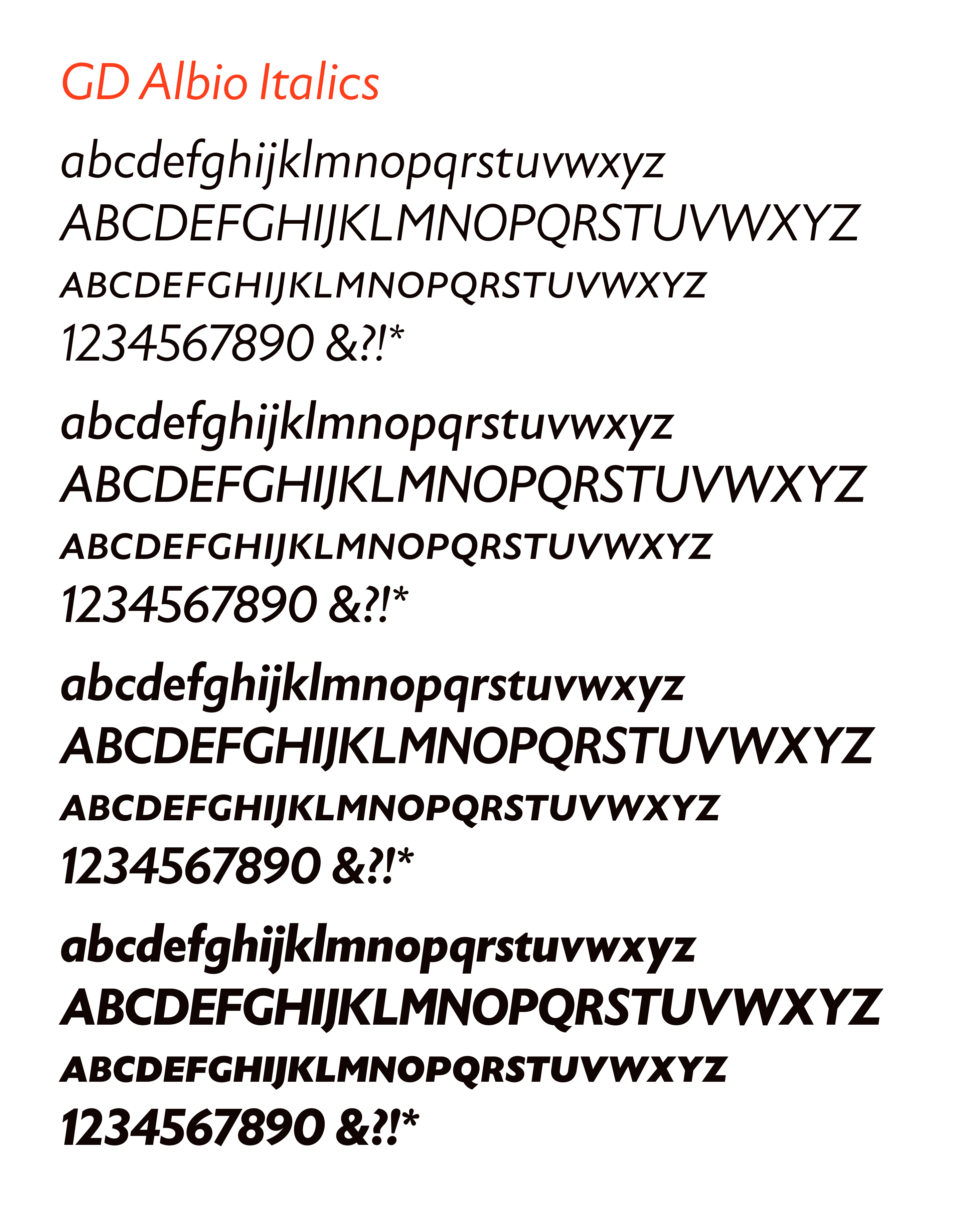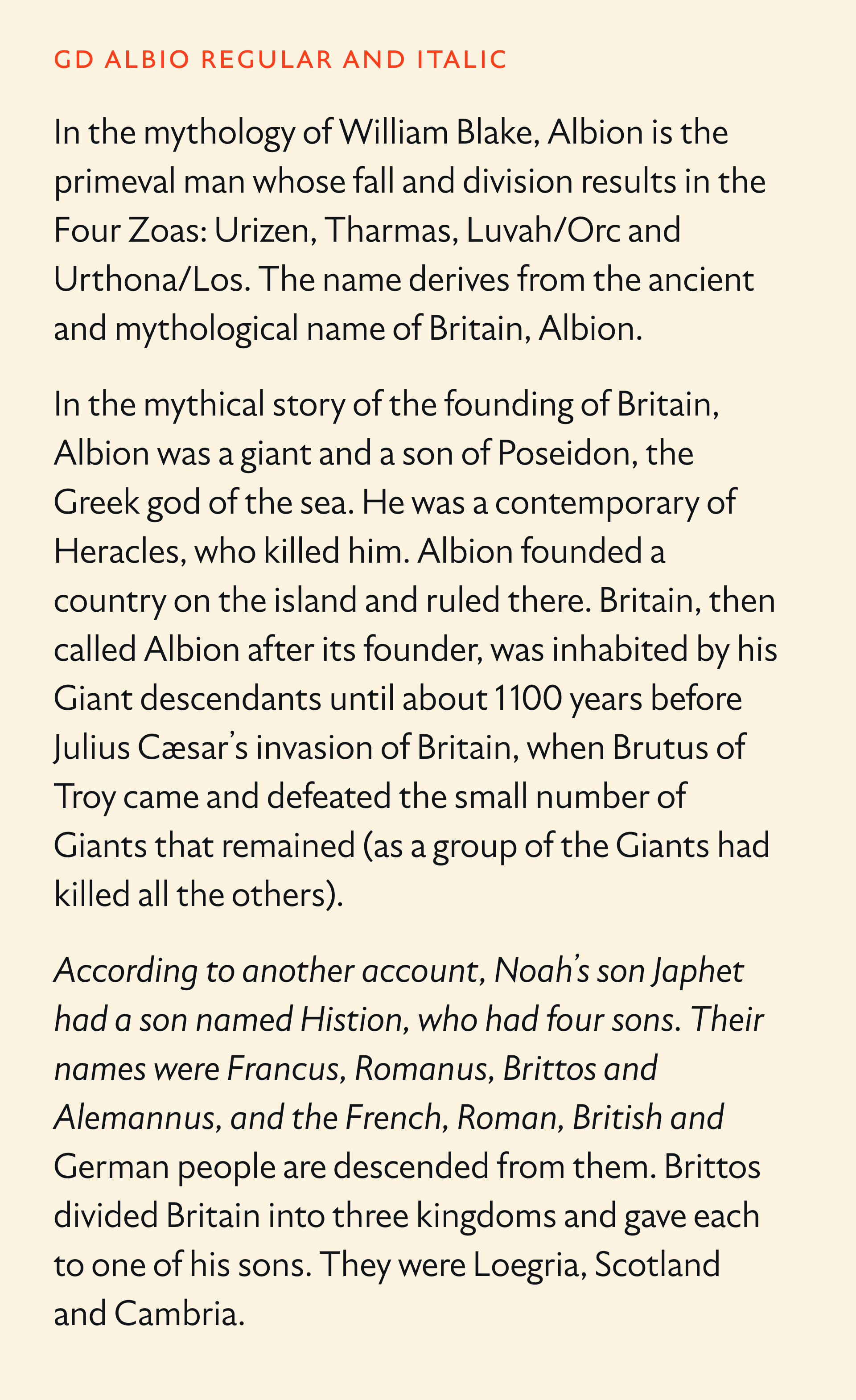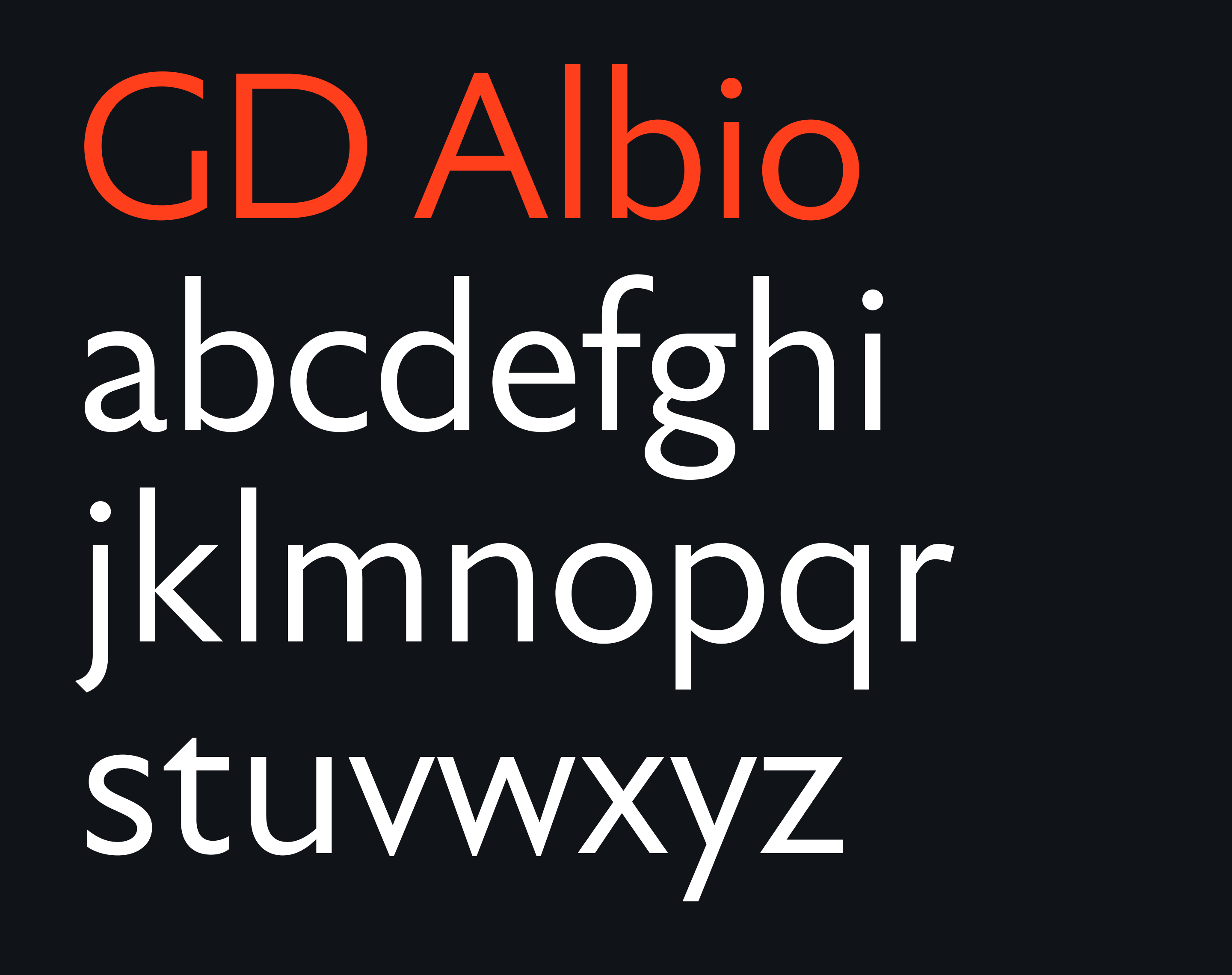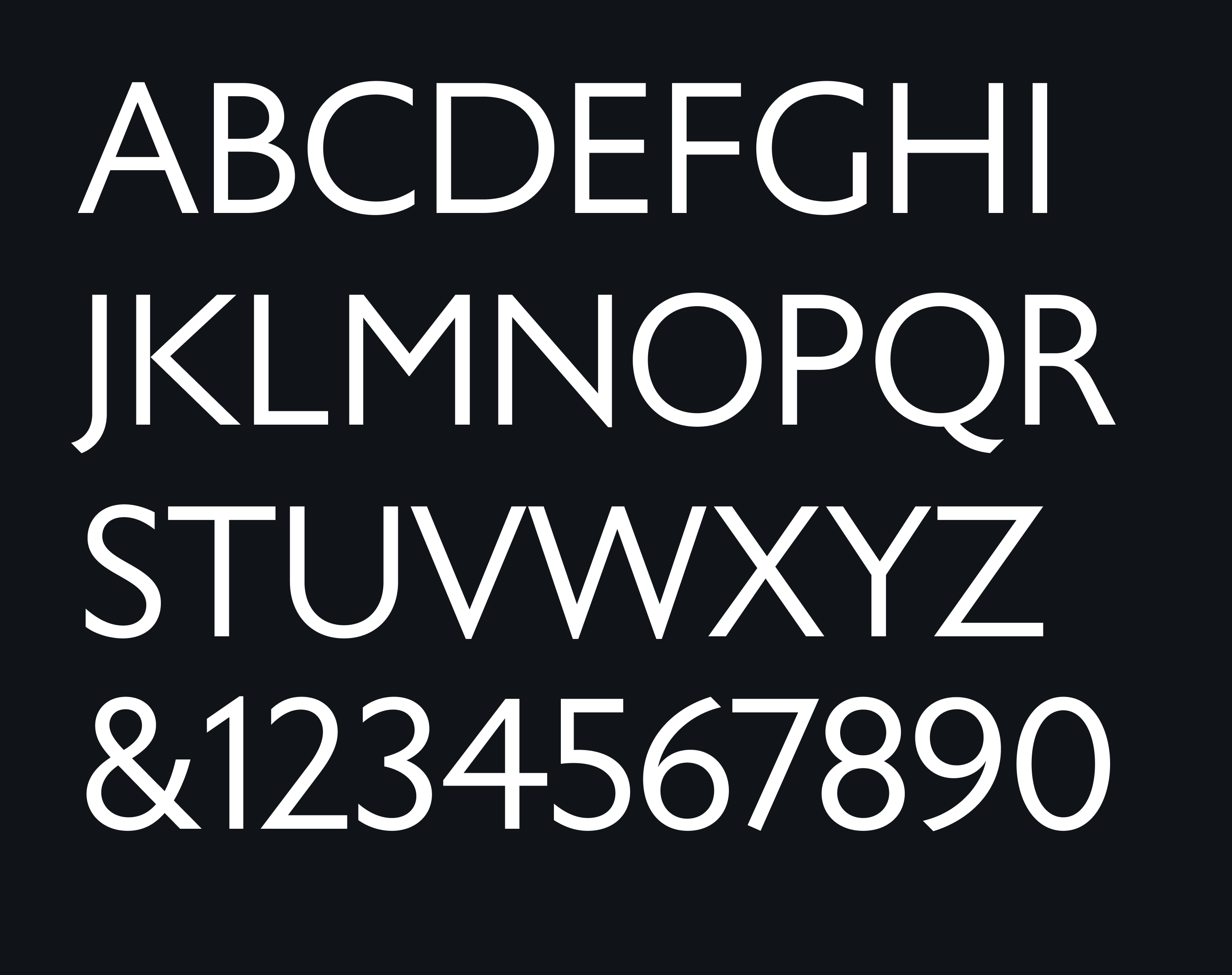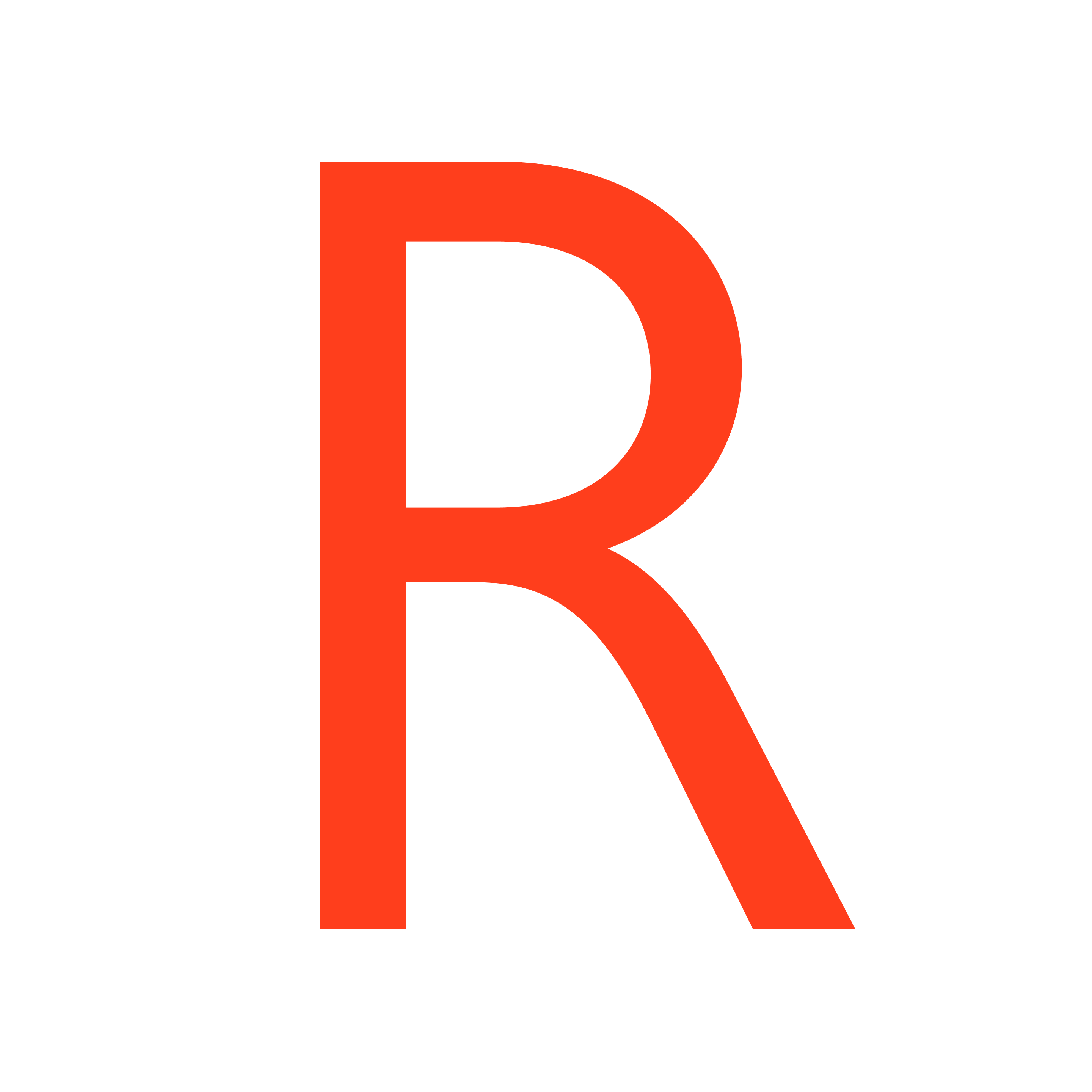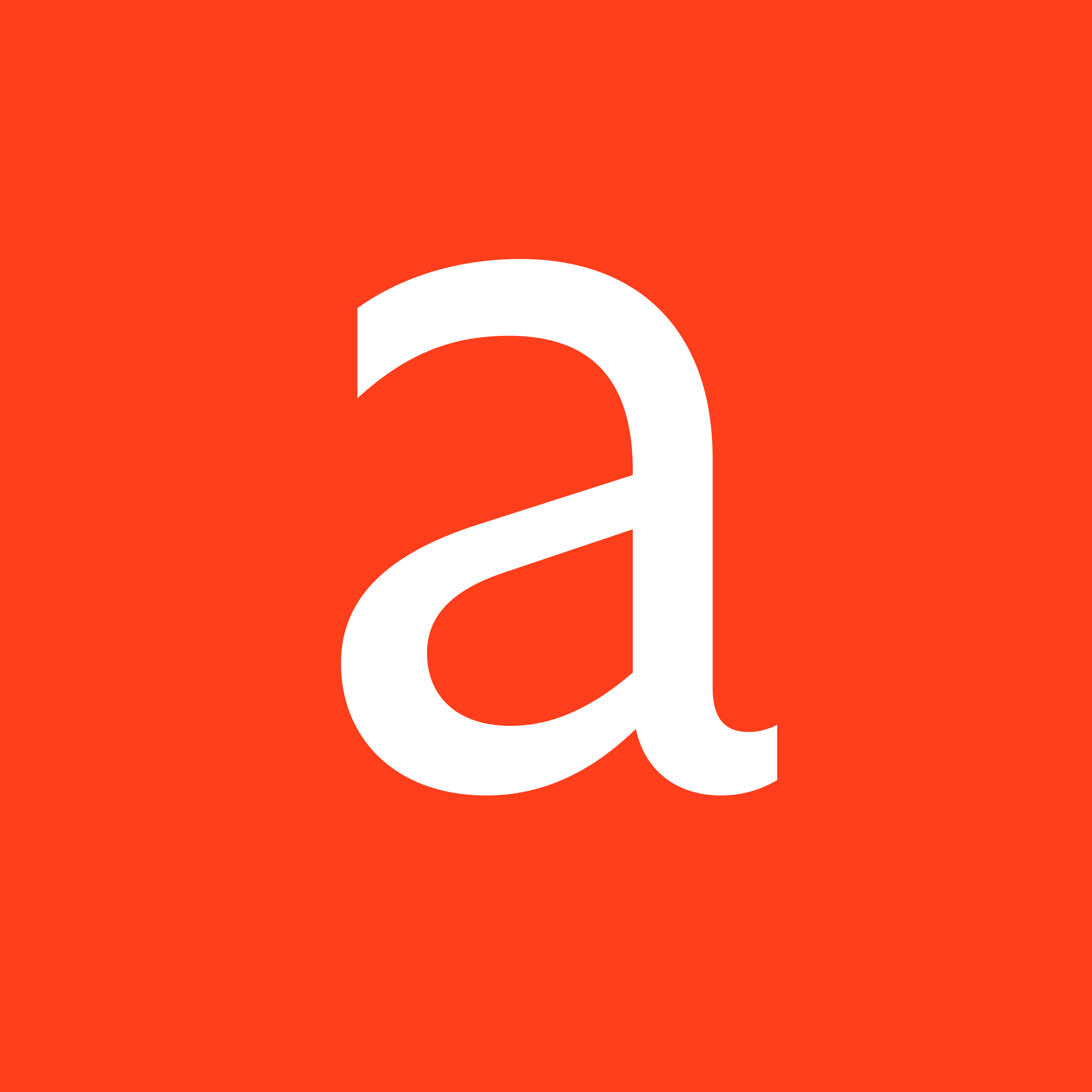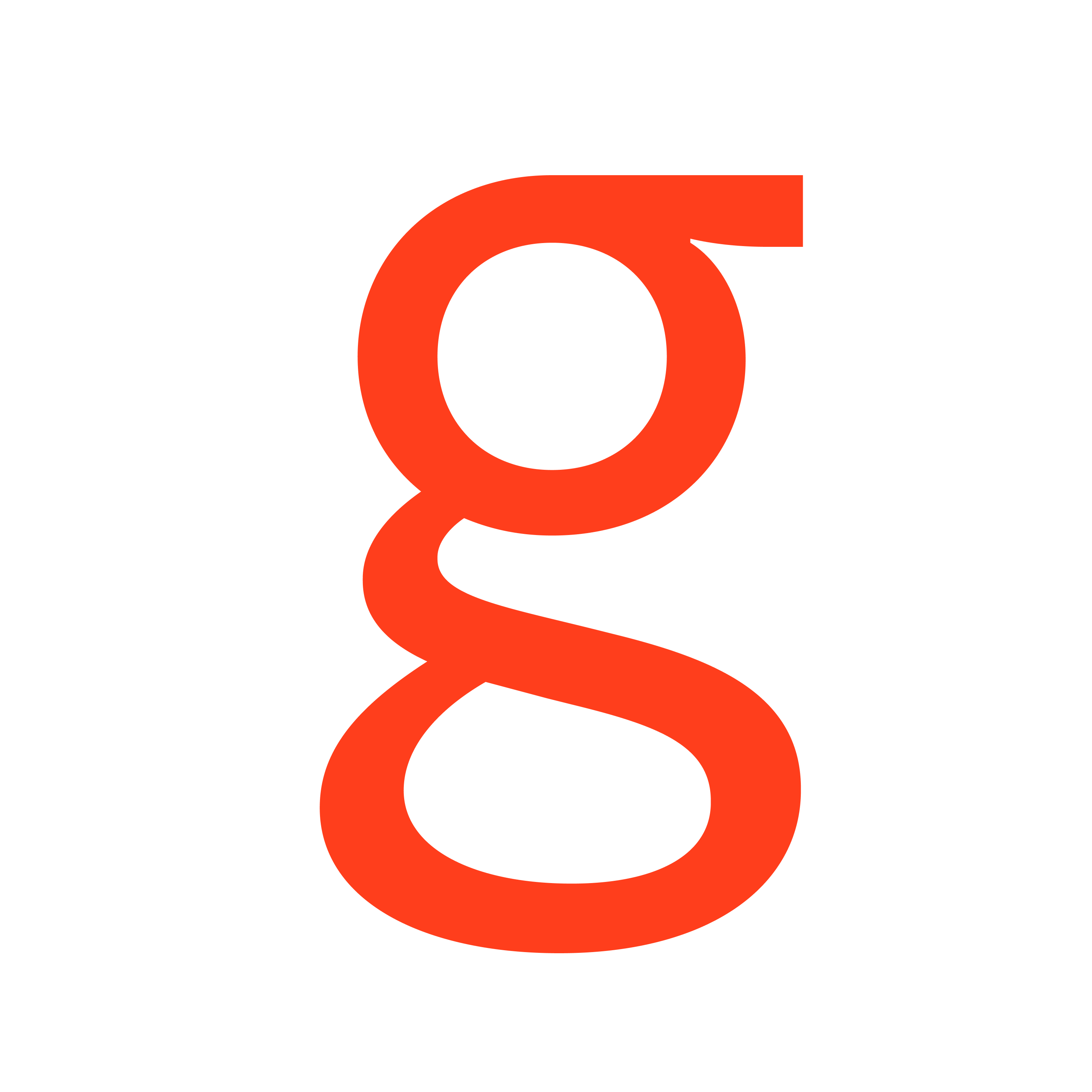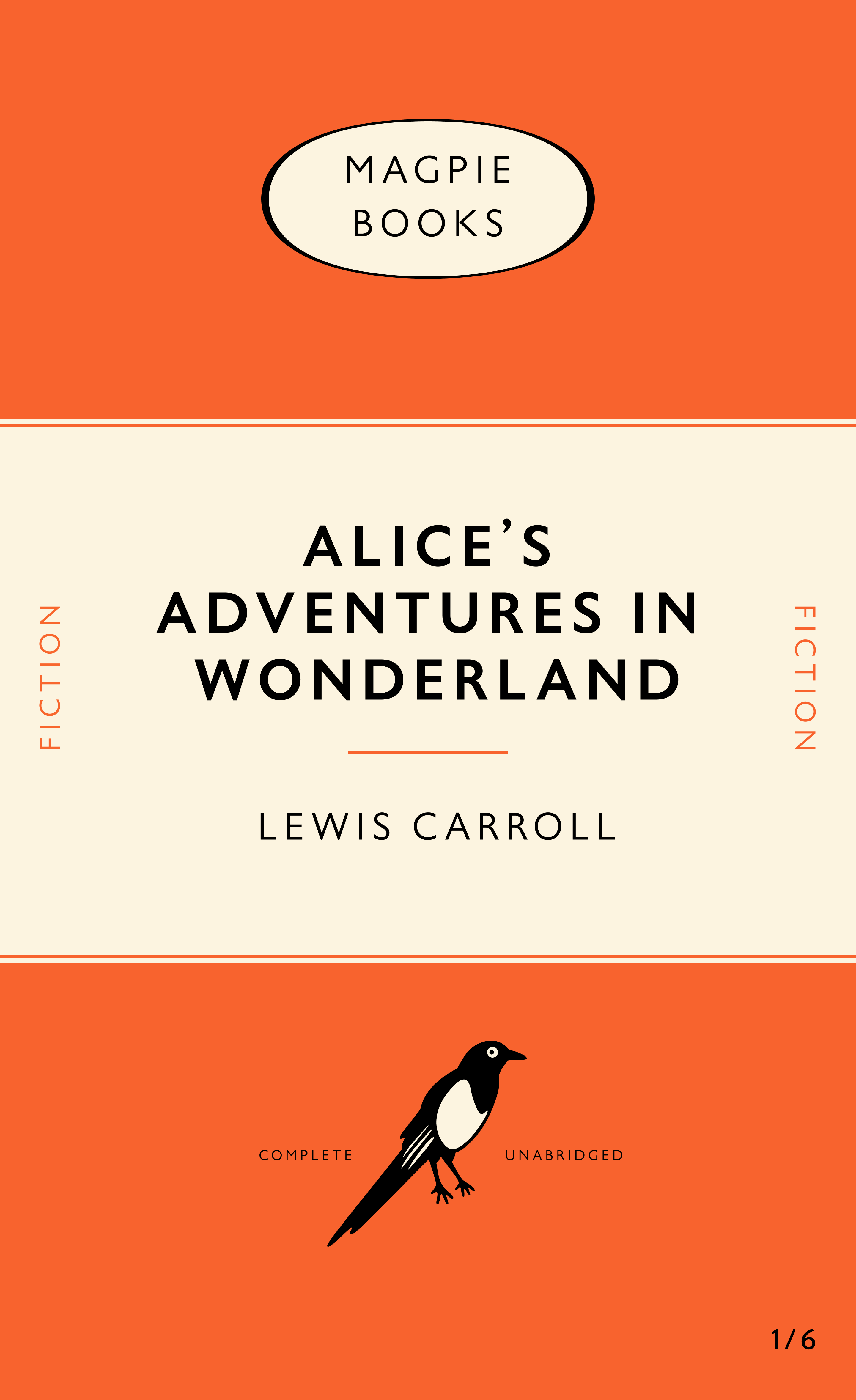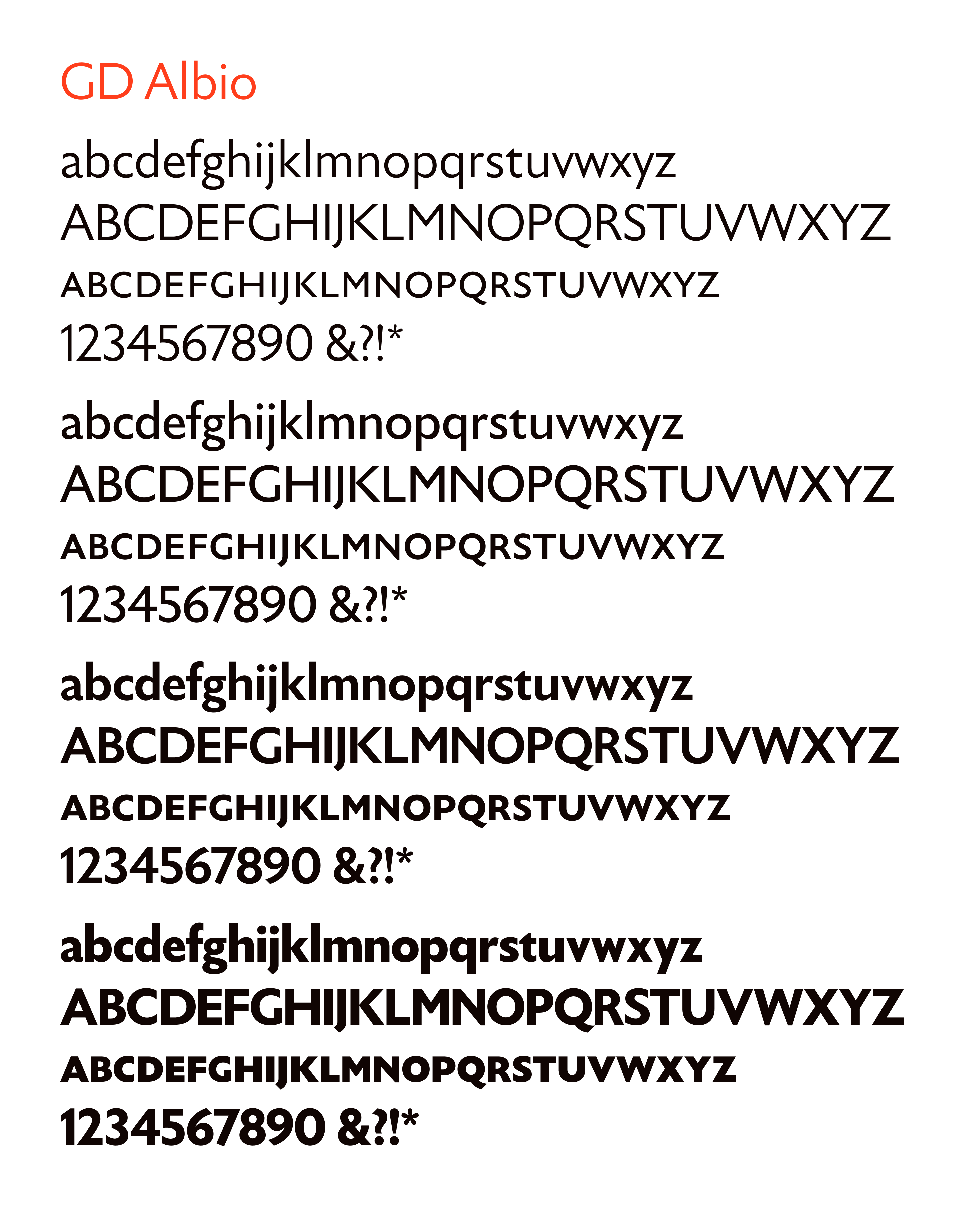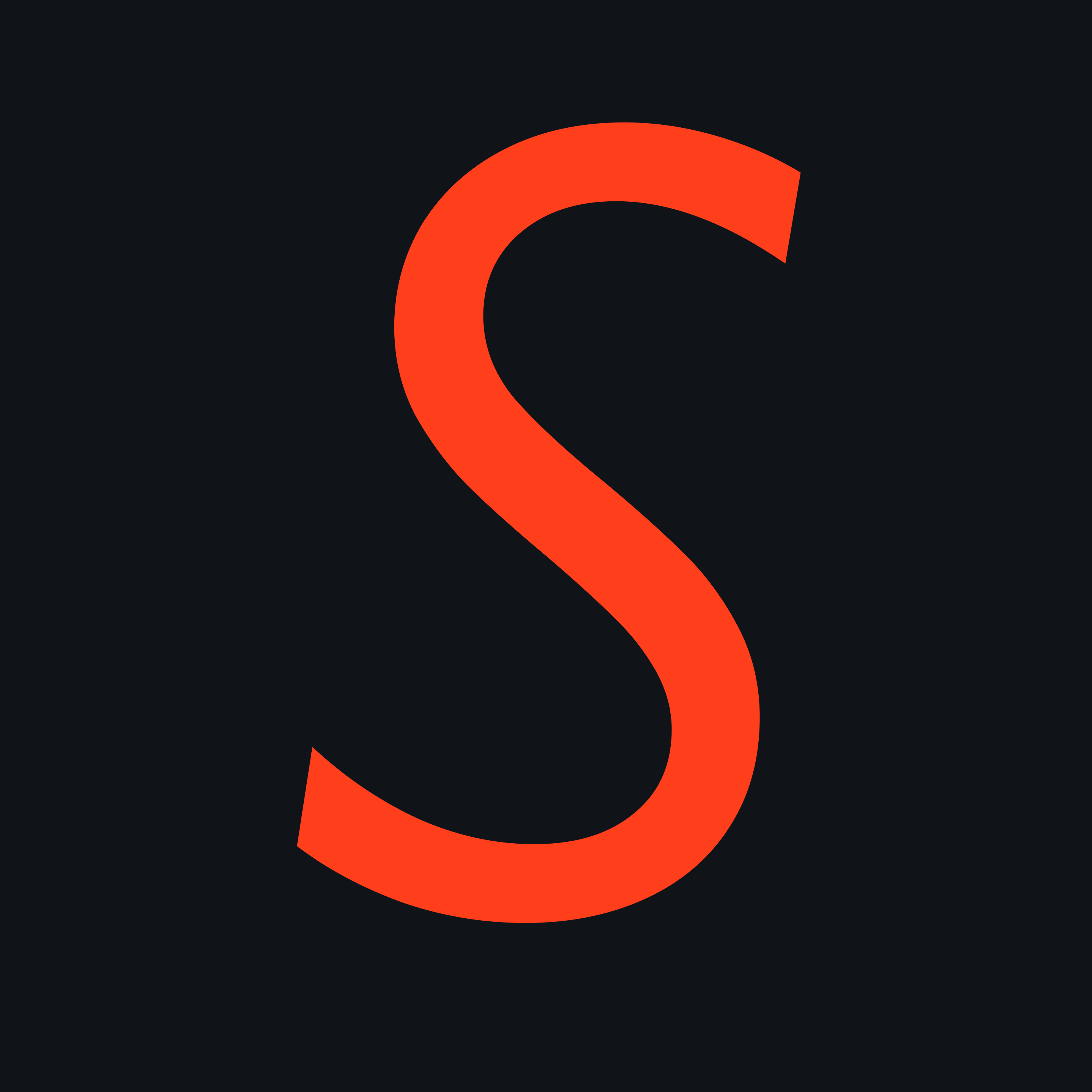
GD Albio
The humanist subgenre of sanserifs first emerged in the UK with Edward Johnston’s 1916 design for the London Underground and his student Eric Gill’s 1928 design Gill Sans.
These designs departed from earlier sanserifs. When sanserif fonts first emerged in the 19th century, they were based on the proportions of the serif typefaces that were popular at the time (the ‘modern’ genre) but with reduced stroke contrast and without the serifs. Johnston instead based his proportions on Roman capitals, which to his mind “held the supreme place among letters for readableness and beauty”.
However, Johnston Sans doesn’t preserve the calligraphic nature of Roman capitals, but rather transformed them into machine-like geometric simplicity. To this, Johnston Sans added some details like the lowercase ‘l’ with a tail that aids legibility. And some eccentric features like the diamond-shaped dots on ‘i’ and ‘j’, and the diagonally cut terminals on ‘a’, ‘1’ and ‘5’, all of which add a welcome sense of sharpness to the design.
Eric Gill built on his teacher’s work when he designed Gill Sans for Monotype. Some eccentricities were removed while others were added. In places, Gill flirted with humanist calligraphy, and allowed himself varied stroke contrast, but other letters instead go for simplified geometry. The design reflects personal whimsy rather than a consistent design principle. If you look at Gill’s draughts, they lack attention to details like overshoot on round letters, instead leaving such things to the skilled craftsmen at Monotype, who probably should have been given more credit for the success of Gill Sans as well as other famous typefaces in the Monotype catalogue, like Times and Bembo.
GD Albio takes an eclectic approach to Johnston Sans and Gill Sans, picking up on some characteristic details while leaving others. Despite being inspired by historical models, it’s not a revival of anything, but a contemporary sanserif, designed to meet the demands of contemporary designers.